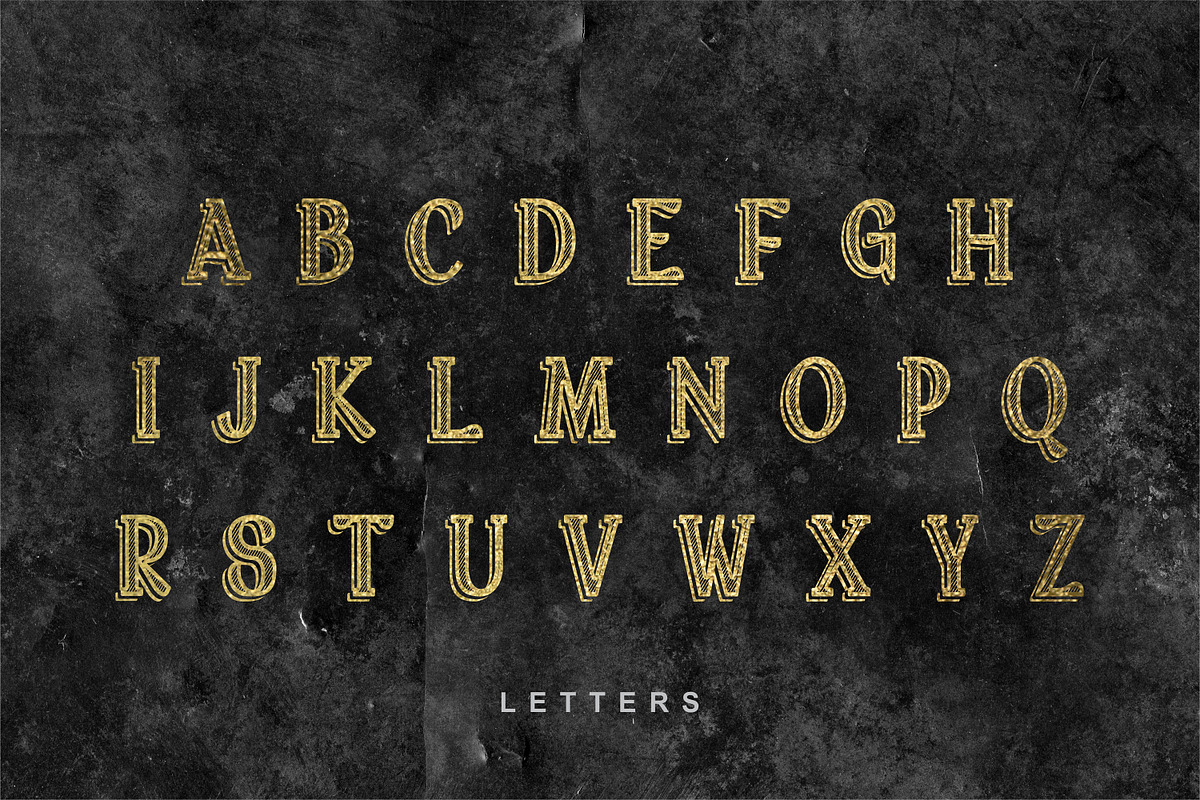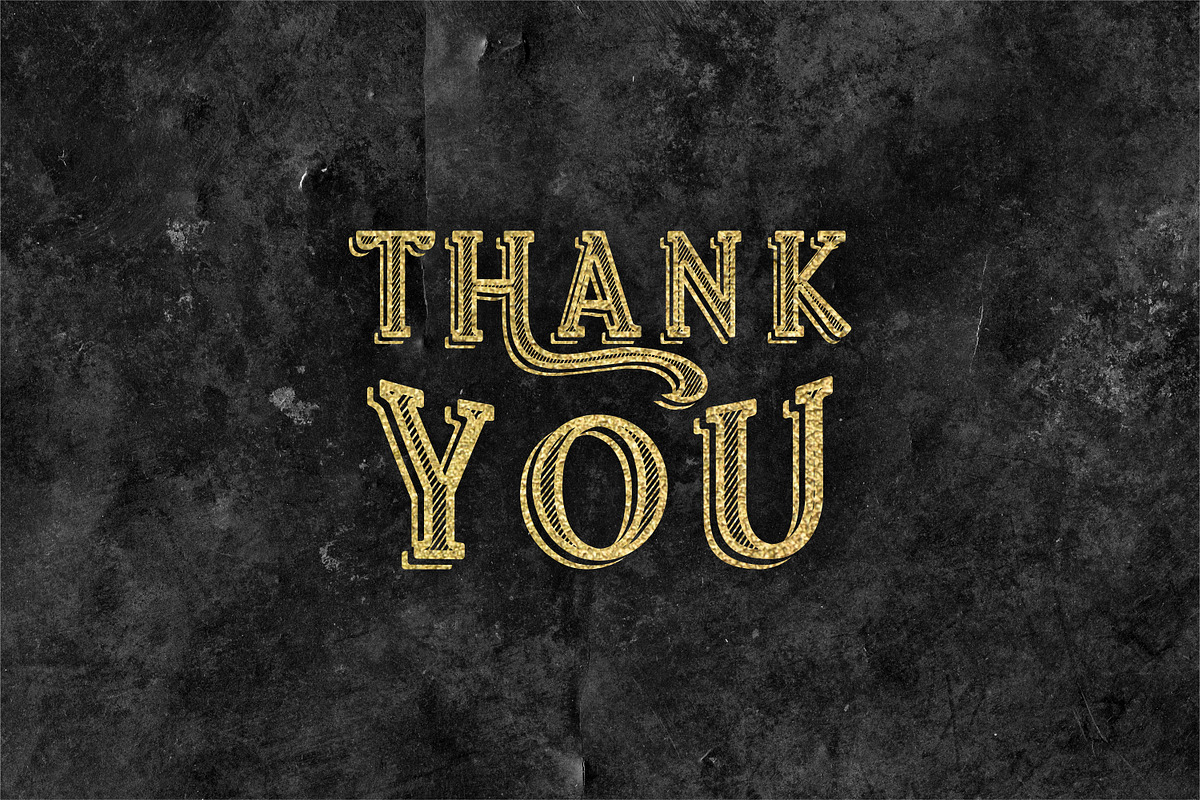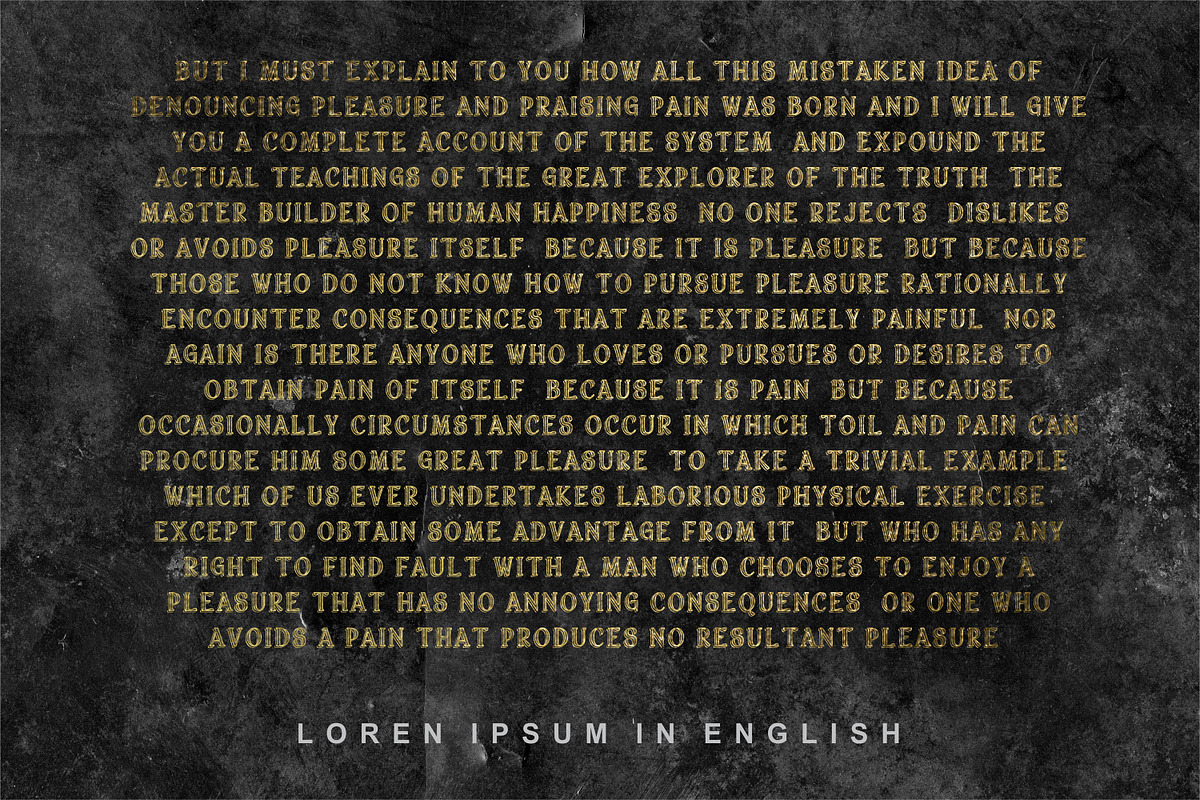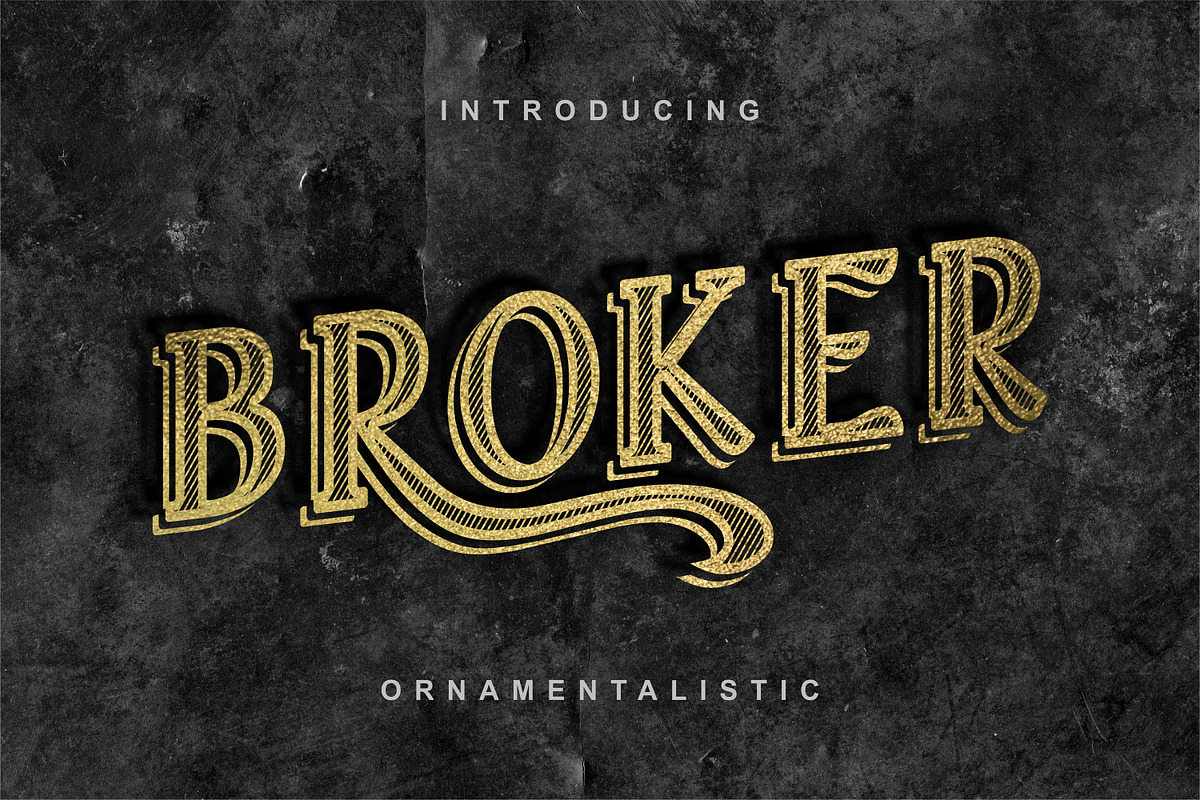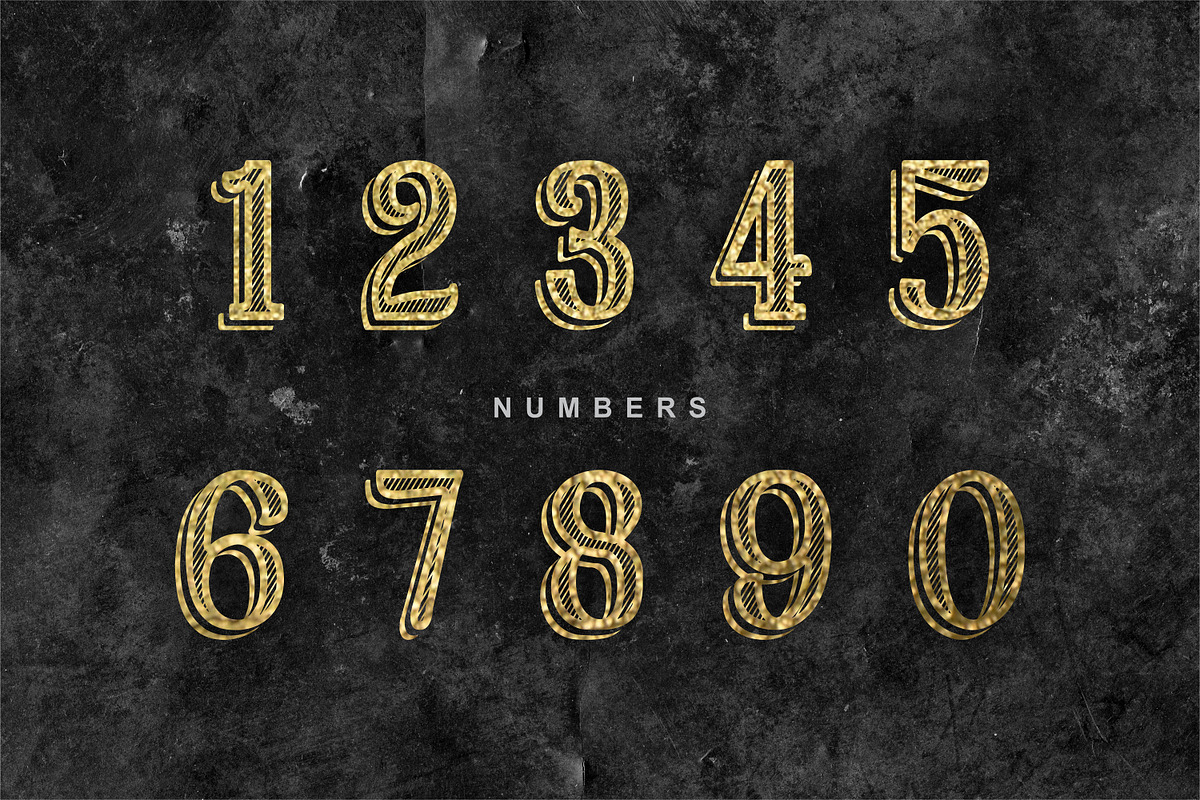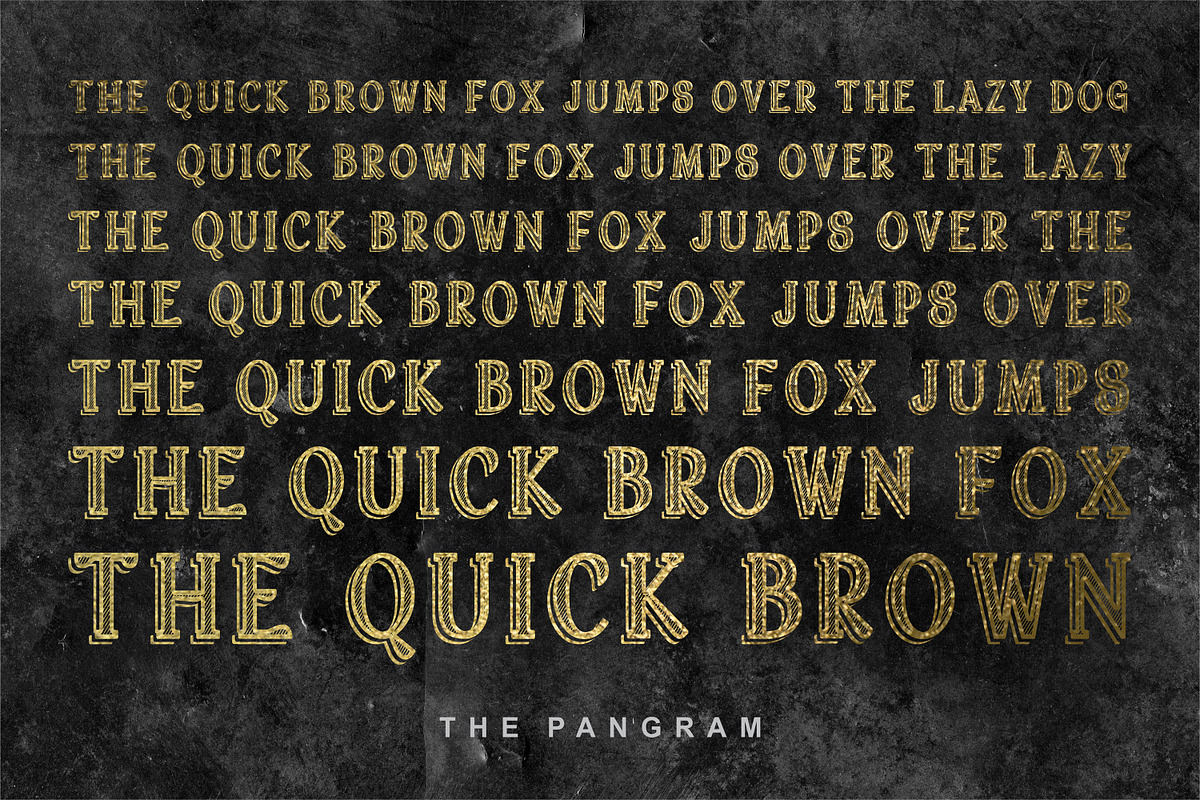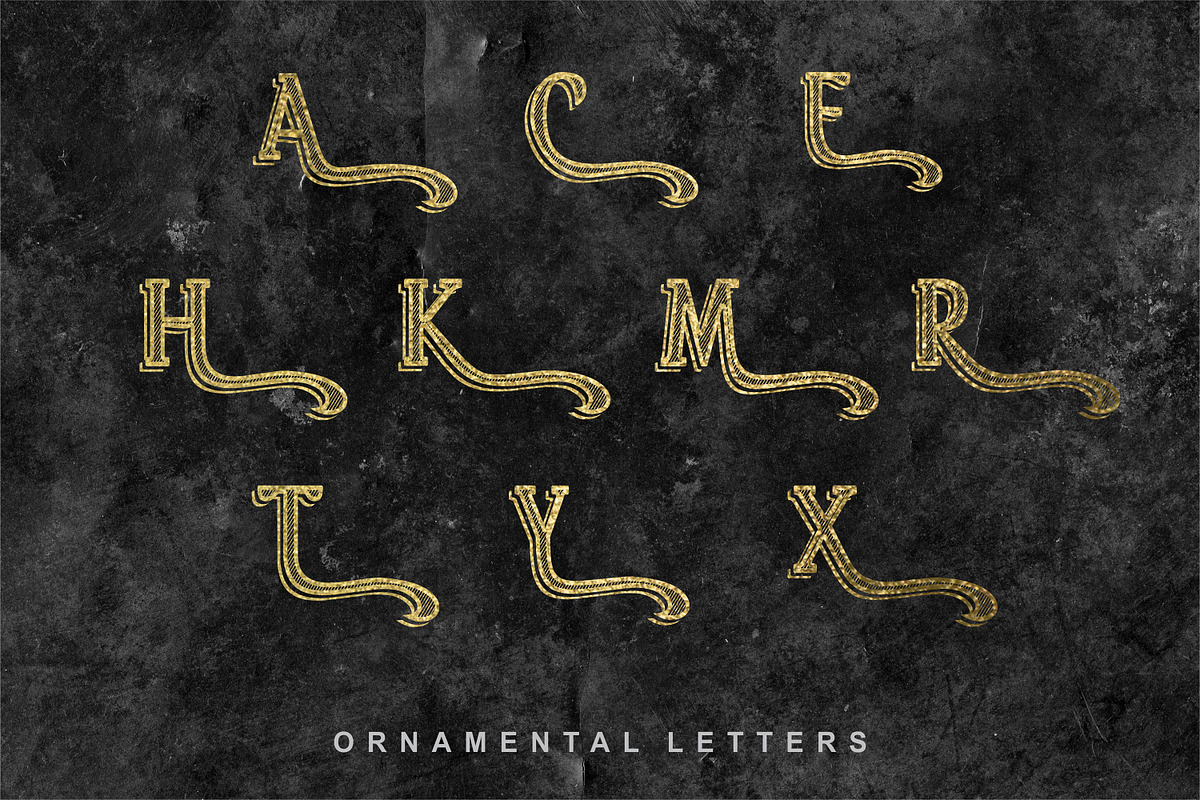
Broker - Vintage Display Font
Broker is a strong and concise font with concrete basement and sharp edges. This brutal font is for only covers or advertisement headings, site banners and logos wordings, texting etc. Inspired by business and finance this font is applicable in many designs and is flexible. It has additional letters with ornamentals. Ornamentals letters could be accessed through the symbol’s menu from any software program.
Number of possible uses for inspiration:
Book covers or inside chapters section heading
Posters or postcards design
Party decorations and congratulation cards
Invitation letters and business envelopes
Text headings and graphic themes designs
Broker - Vintage Display Font by Vintage Font Lab fits naturally into Branding, posters, packaging, typography.